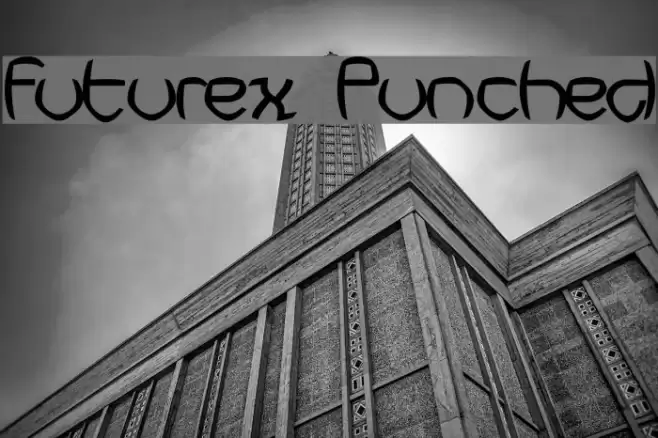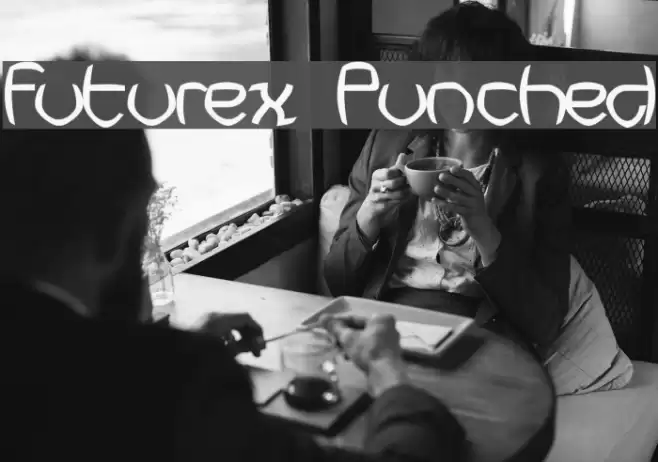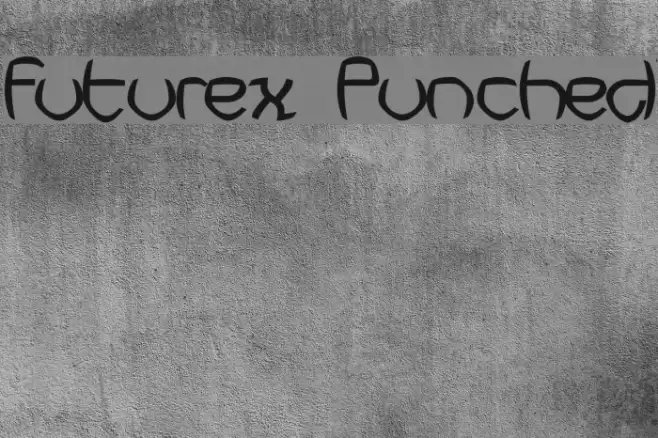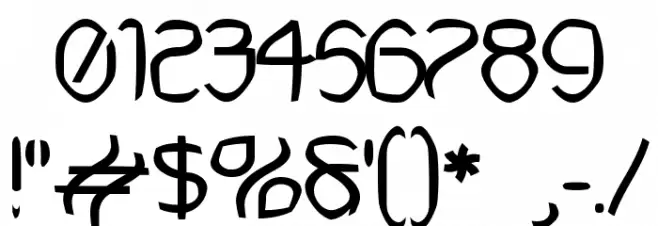
Futurex Punched Font
Futurex Punched Description
This font features a unique, futuristic design with rounded edges and a slightly condensed form. The characters exhibit a playful yet structured appearance, with consistent stroke thickness throughout. The uppercase letters are bold and prominent, while the lowercase letters maintain a harmonious flow. Numbers and special characters follow the same design principles, ensuring uniformity across the typeface. The overall style is modern and slightly experimental, making it suitable for creative projects that require a distinctive and eye-catching look.
A modern, futuristic font with rounded edges and consistent stroke thickness from Futuristic fonts.
- Proposed Projects: Ideal for sci-fi themed designs, technology branding, video game titles, and innovative product packaging.
- Width: Condensed